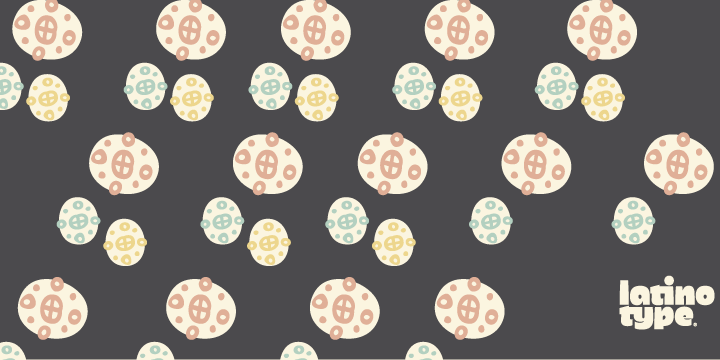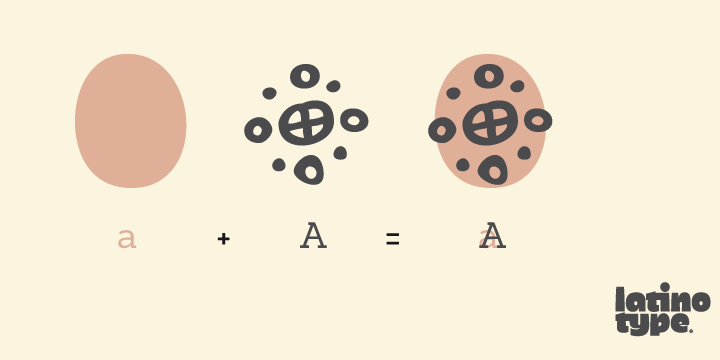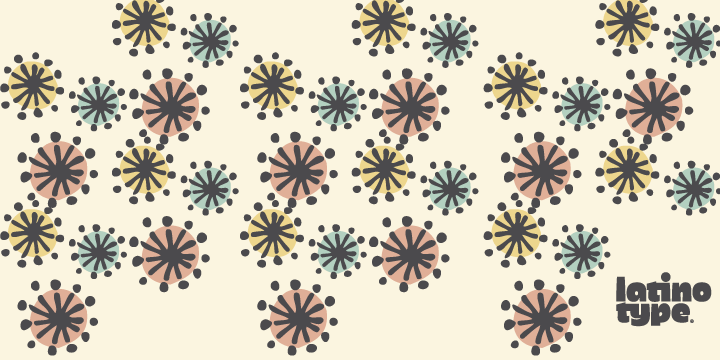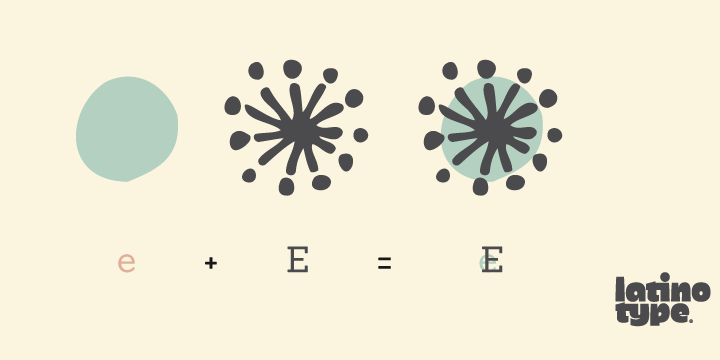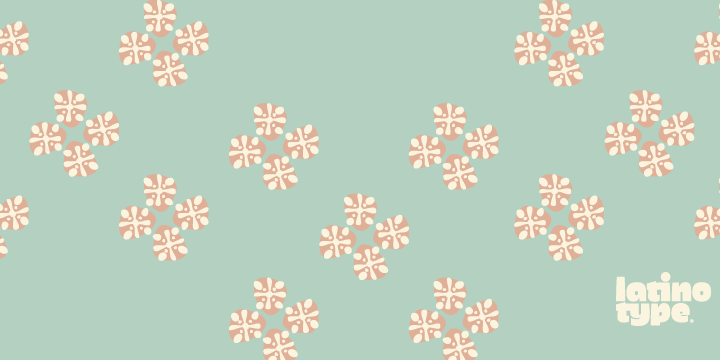
Printa is a dingbat font family. This typeface has two styles and was published by Latinotype.
Printa is inspired by mandalic structures. Its visual language is based on misregister and flaws in textiles printed by silk screen technique in the ‘70s.
This Dingbat allows you to combine two characters (front/uppercase; back/lowercase) into a single one to create print patterns. This way you can get many different combinations. Printa is ideal for those who seek handmade designs.